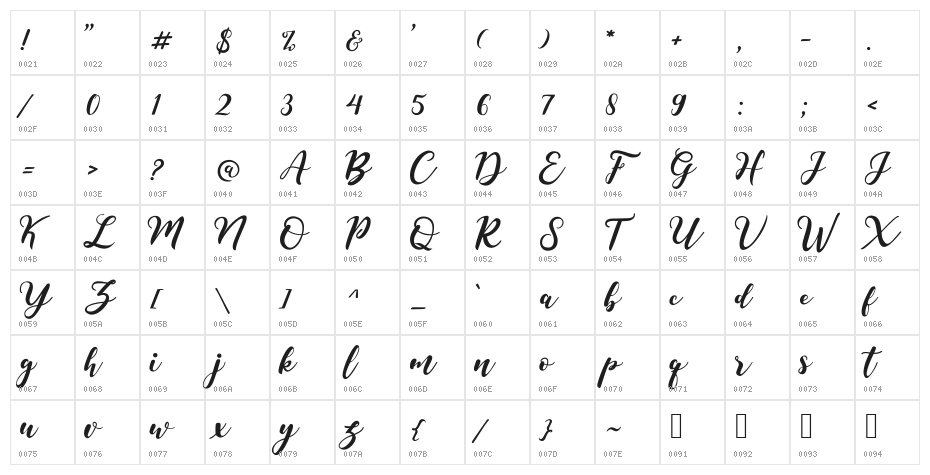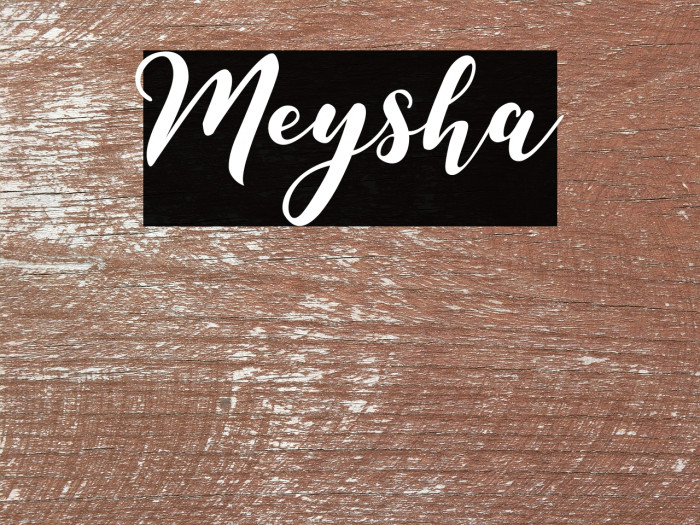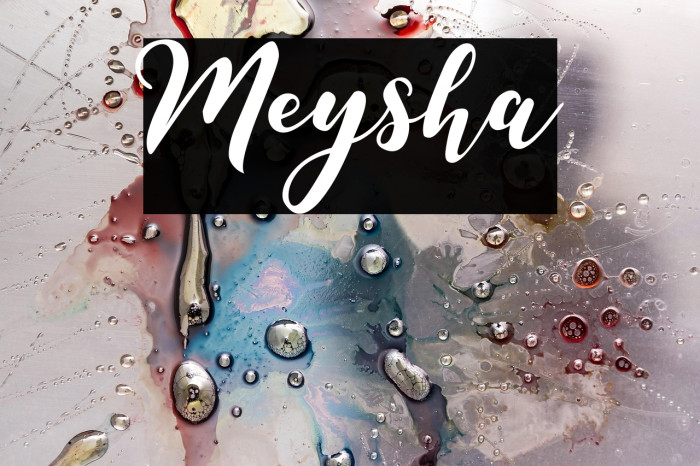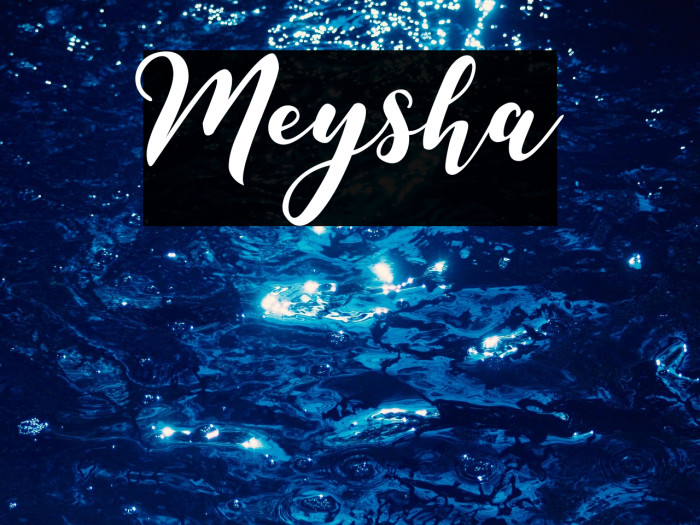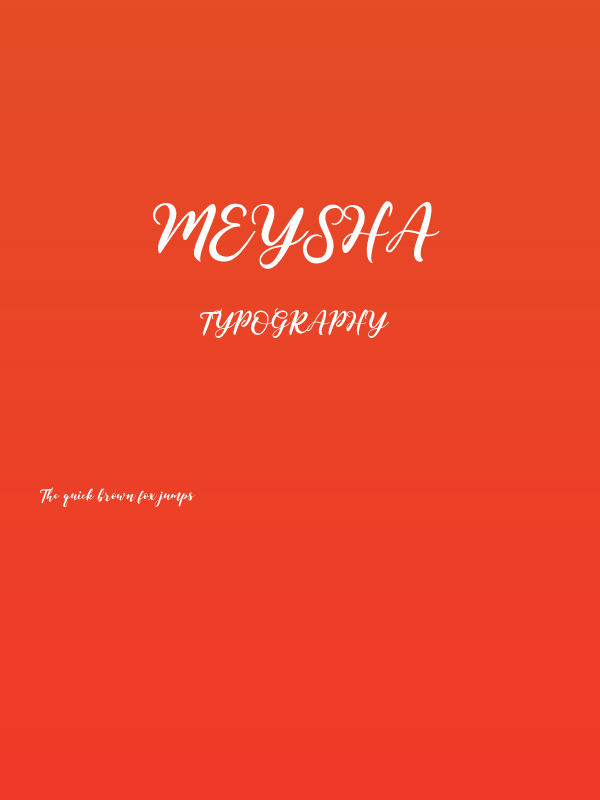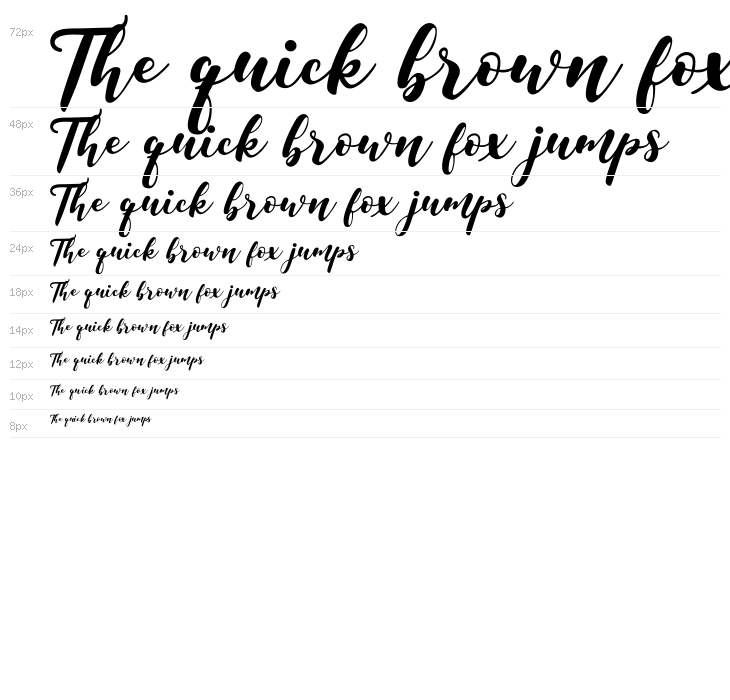
Meysha Font
Meysha Description
This font is a bold and expressive script style that exudes a sense of elegance and flair. The characters are fluid and connected, with sweeping curves and a dynamic flow that adds a touch of sophistication. The uppercase letters are particularly striking, with their elaborate loops and flourishes, while the lowercase letters maintain a consistent rhythm and balance. The numerals are equally stylish, complementing the overall aesthetic. This font is perfect for projects that require a personal, handwritten touch, such as invitations, branding, and decorative designs.
| Proposed Projects | Ideal for wedding invitations, branding, greeting cards, and decorative projects. |